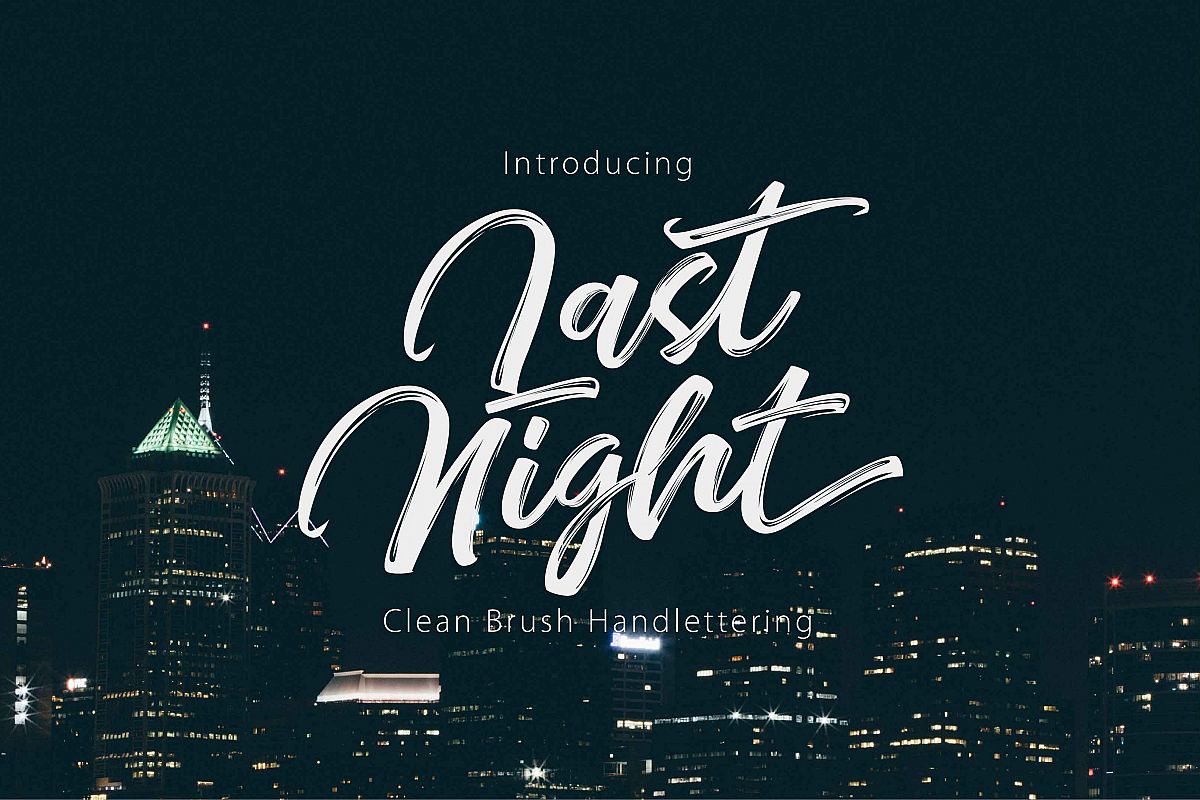
LAST NIGHT
"INTRODUCING"
LAST NIGHT
HandletteringLAST NIGHT Handlettering is a beautiful Modern clean Brush handlettering font Typeface,
This Font will look gorgeous on all your designs, wedding invites, branding materials, logo's, t-shirt, poster, business cards, quotes and all project design other.